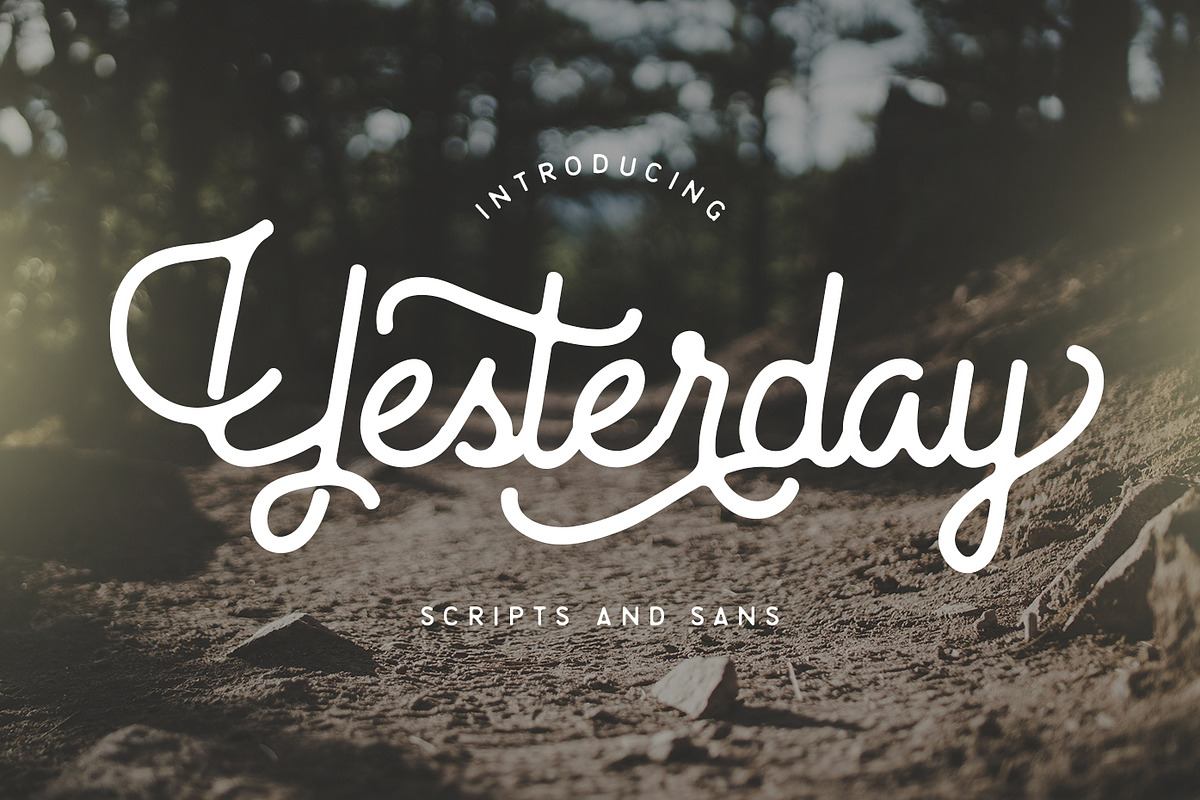
Yesterday Typeface Free Download is a beautifully designed font that combines classic and modern elements, offering a balanced and refined style. With its elegant letterforms and smooth curves, Yesterday is perfect for creating vintage-inspired logos, branding, editorial designs, invitations, and any project that needs a timeless yet contemporary touch.
Yesterday Typeface Free Download brings a sense of nostalgia and sophistication to your typography, making it ideal for both print and digital designs. Whether you're crafting a retro logo, designing a stylish magazine layout, or creating elegant invitations, Yesterday adds a touch of class to your work. Download it today and bring a piece of the past into your modern designs with Yesterday!